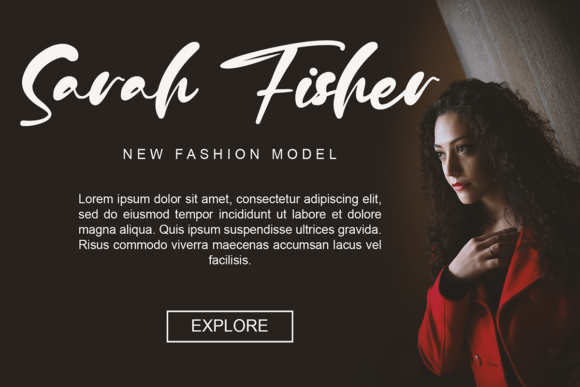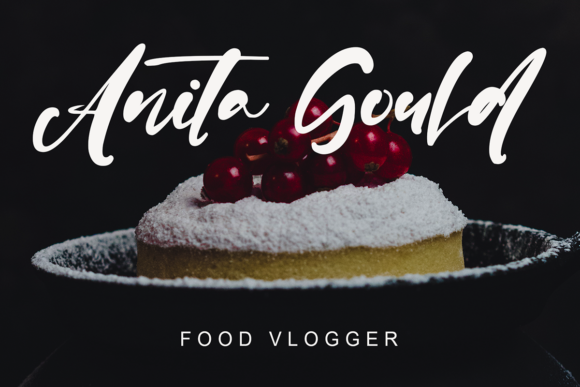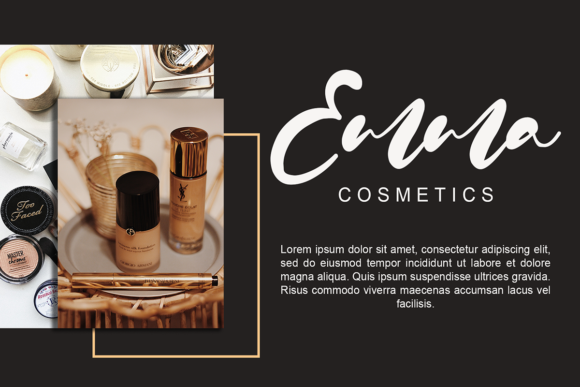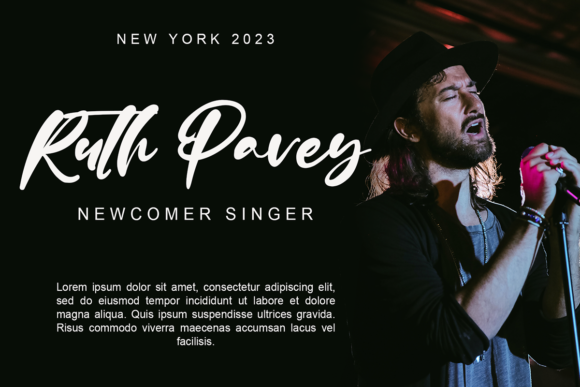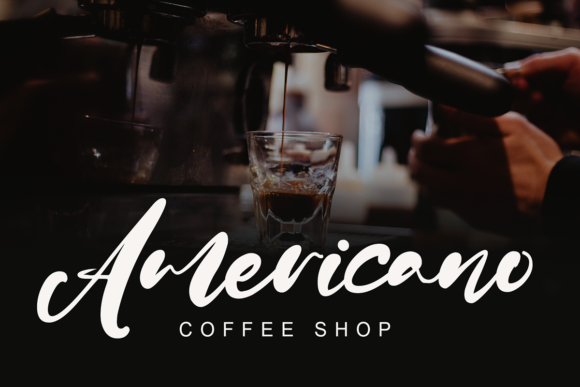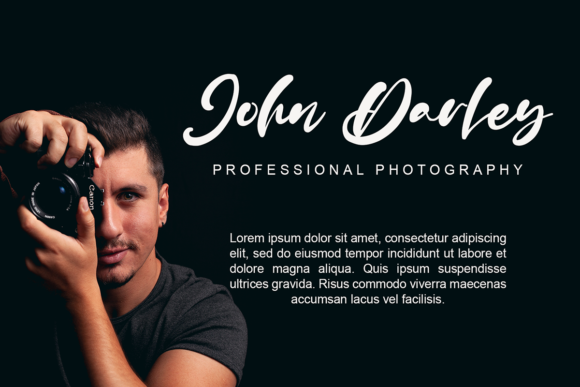
Introduction to George Oscar Font
Have you ever found yourself staring at a blank canvas, waiting for the perfect font to spark your creativity? For designers, finding the right typography can make all the difference in bringing a project to life. That’s where the George Oscar Font comes in – a high-quality, modern script typeface that’s sure to elevate your creative projects.
With its elegant and refined design, the George Oscar Font is perfect for any project that requires a touch of sophistication. From logotypes and branding design to digital lettering and T-shirt/apparel design, this versatile font is a valuable resource for designers of all levels. Plus, with a transparent background and free download available, it’s never been easier to incorporate this design resource into your next project.
Key Features of George Oscar Font
- High-quality, professional font suitable for creative projects
- Unique, hand-drawn style with a transparent background for versatile use
- Size: Includes 6 font styles (Regular, Italic, Bold, Bold Italic, Light, Light Italic) for varied design applications
- Perfect for designers and artists looking for a creative and distinctive font for their projects
Honest Review: George Oscar Font
As a designer, I’m always on the lookout for high-quality fonts to elevate my creative projects. I recently stumbled upon the George Oscar Font, and I’m excited to share my thoughts on this design resource.
What works well: ✨ The George Oscar Font has a beautiful, elegant script style that’s perfect for adding a touch of sophistication to your designs. The font is also highly versatile, making it suitable for a wide range of creative projects, from weddings to business cards.
Any limitations: ⚠️ While the George Oscar Font is a great addition to any designer’s toolkit, it’s worth noting that it’s a script font, which can be challenging to read in certain contexts. Additionally, the font may not be suitable for very small text sizes.
Overall impression: I’m impressed with the George Oscar Font’s high quality and versatility. It’s a great resource for designers looking to add a touch of elegance to their creative projects. Whether you’re working on a wedding invitation or a business card, the George Oscar Font is definitely worth checking out.
George Oscar Font is perfect for creative projects such as logos, business cards, and posters. It’s also great for presentations, documents, and other written content that requires a high-quality and unique font. With its transparent background and free download, you can use it anywhere you need a stylish and professional touch.